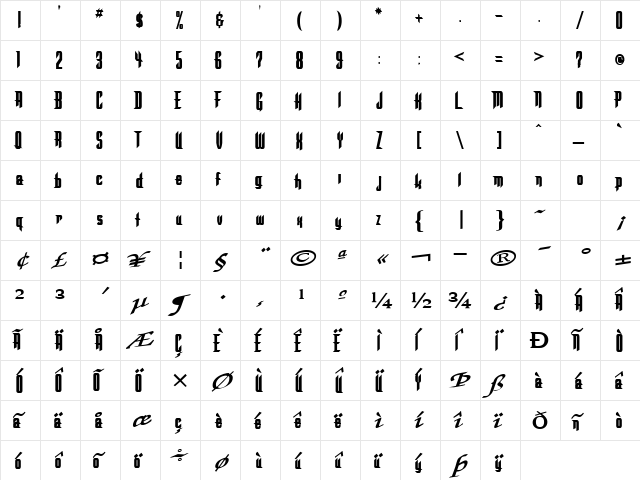
CuteEnvy127 Bold
Design Context for CuteEnvy127 Typeface
CuteEnvy127 is a composed and adaptable typeface that performs quietly and consistently across a wide range of design contexts. Its bold stroke weight gives it real presence on the page.